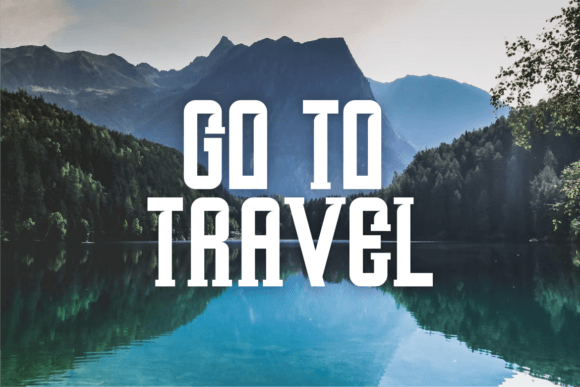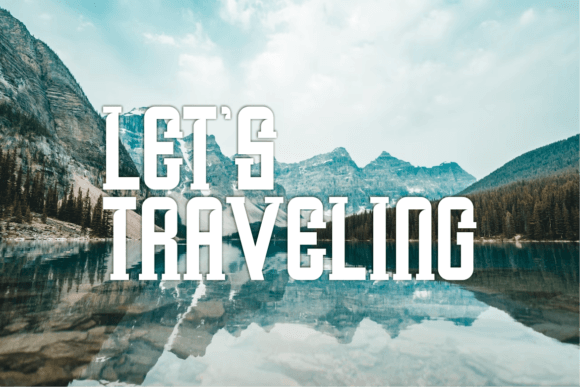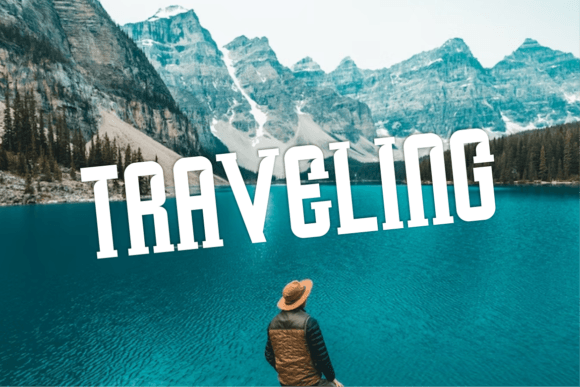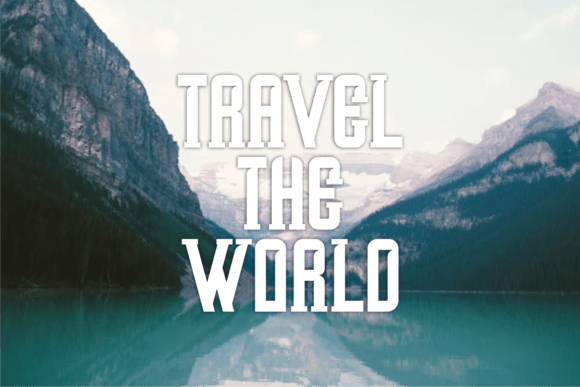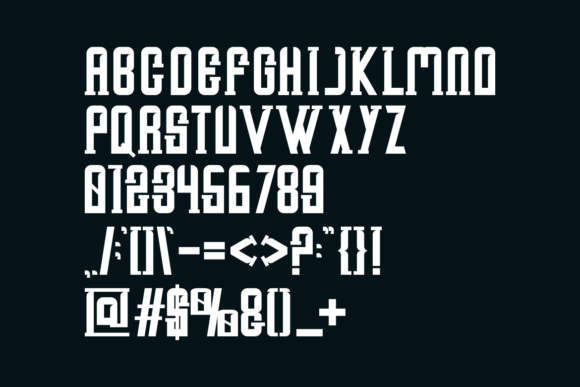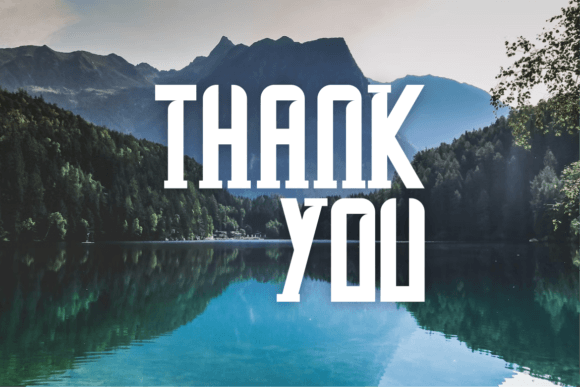
The Designer’s Delight: Gotrav Font
Have you ever been in the middle of a design project, and suddenly, you’re stuck on finding the perfect font? I recall a recent experience where I was working on a wedding invitation design, and my client specifically asked for a font that exudes elegance and sophistication. After hours of searching, I stumbled upon the Gotrav font, and it was love at first sight! In this article, I’ll share my journey with Gotrav, its features, and how to make the most of it in your designs.
A Personal Review: What I Love About Gotrav
Gotrav is a bold serif font that feels beautiful, classy, and modern. Here are some aspects that I absolutely adore:
- ✨ Elegant and sophisticated feel, perfect for high-end designs
- 💯 Versatile and adaptable to various design projects, from logos to website headers
- 🎨 Beautifully crafted to add a touch of luxury to any design
While Gotrav is an excellent font, there are a few minor quirks to be aware of:
- 🤔 Limited availability of condensed or italic versions, which might limit its use in certain projects
- ⚠️ May not be suitable for body text due to its bold nature; it’s best used for headings or titles
- Experiment with OpenType features, such as ligatures and stylistic alternates, to add visual interest to your design
The Story Behind Gotrav: Designer Inspiration
Gotrav was designed with the intention of creating a font that embodies elegance and sophistication. The designer aimed to craft a font that would be perfect for high-end designs, such as luxury brands, weddings, and editorials. With its bold serif structure and beautiful OpenType features, Gotrav has become a popular choice among designers.
| What type of projects is Gotrav best suited for? | Gotrav is perfect for a wide variety of projects, such as signature, stationery, logos, weddings, typography quotes, magazine or book covers, website headers, clothing, branding, packaging designs, and more. |
| Is Gotrav suitable for body text? | No, Gotrav is a bold font and is best used for headings or titles. For body text, it’s recommended to use a font with a lighter weight. |
| Does Gotrav have OpenType features? | Yes, Gotrav has beautiful OpenType features, including ligatures and stylistic alternates, which can add visual interest to your design. |